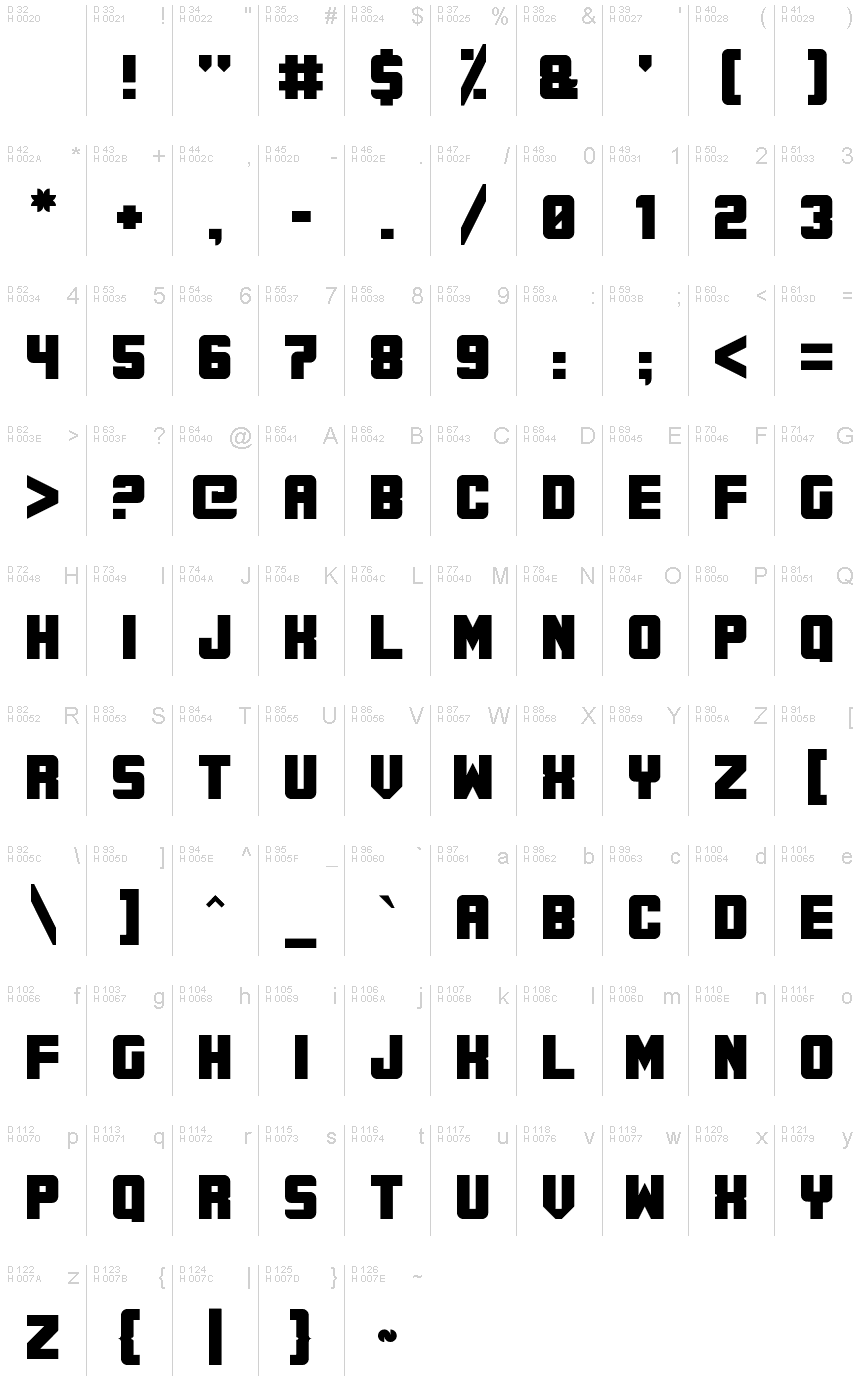
Bold Dragon Regular
Bold Dragon
Font inspired by the text from the "Bad Dragon" logo which doesn't exist. Made using fontstruct.
Designer description: Font inspired by the "Bad Dragon" logo's font which doesnt exist, you can call this the Bad Dragon font I guess..?
This font includes a bunch of characters as seen above.